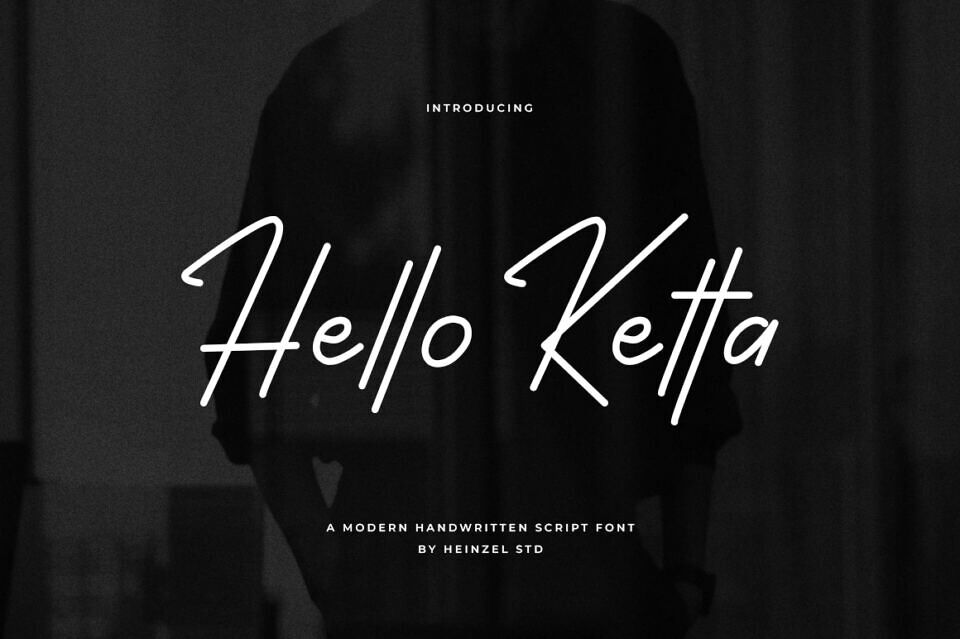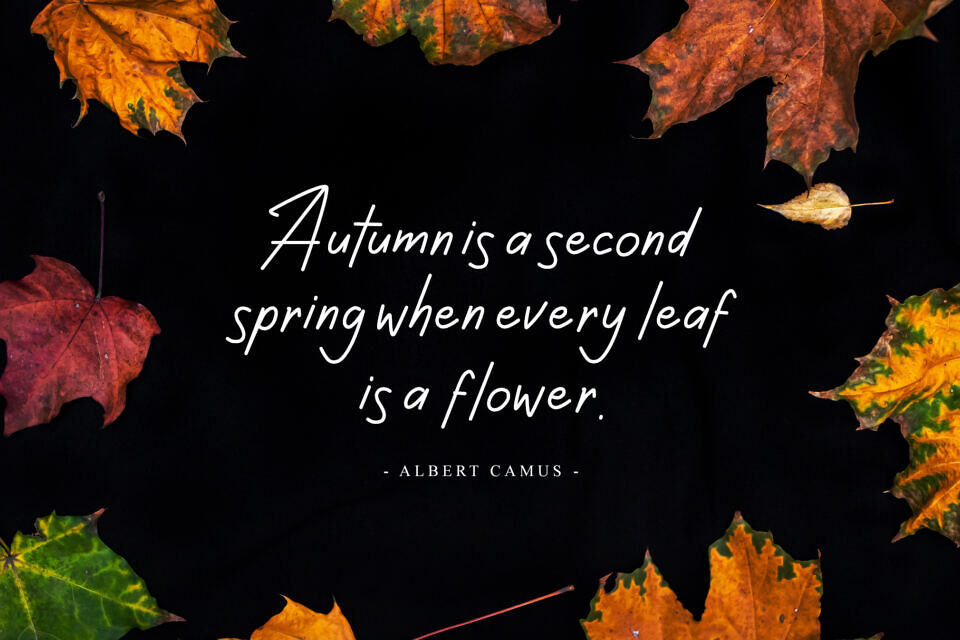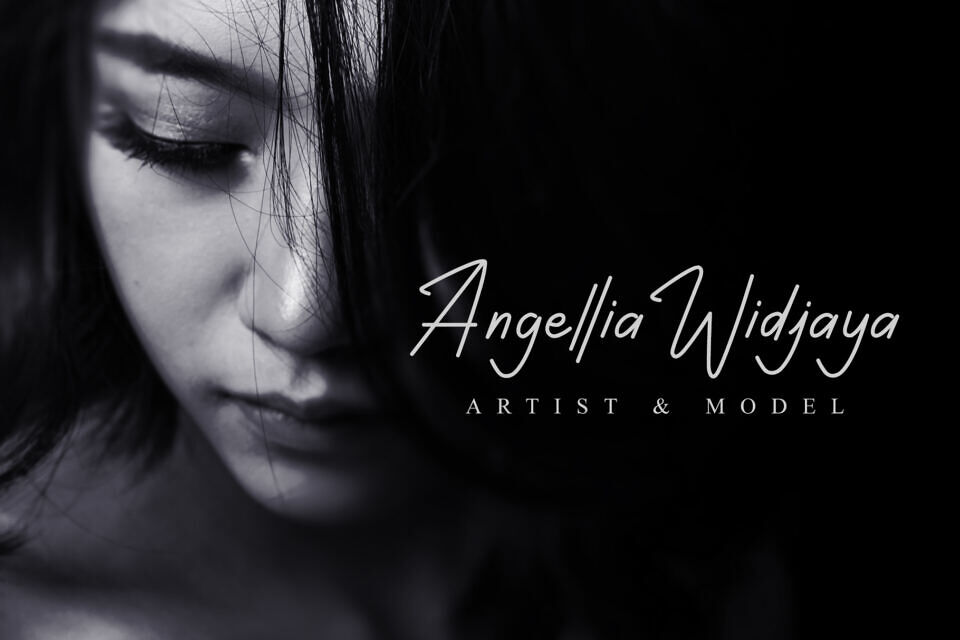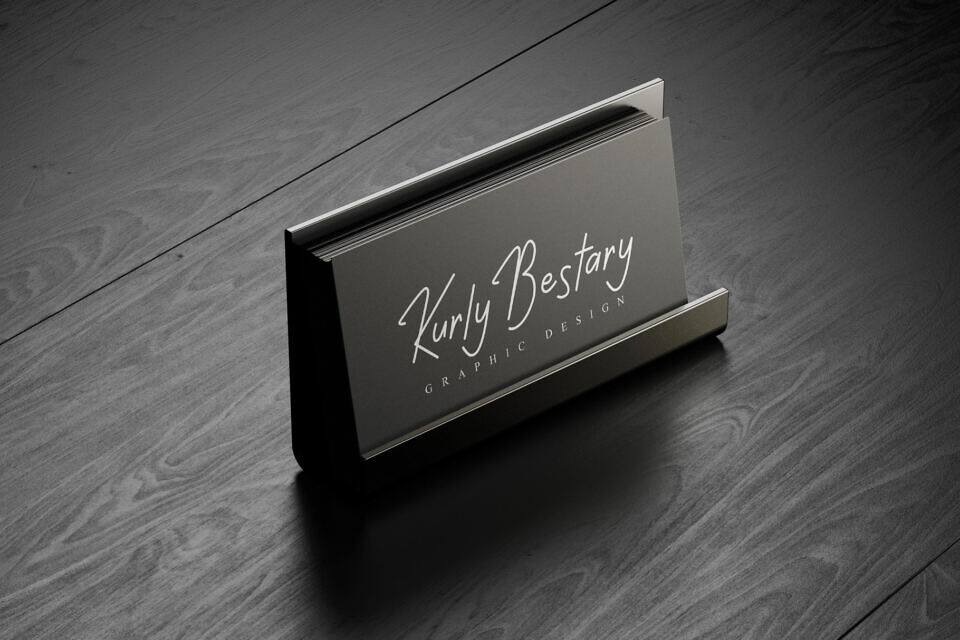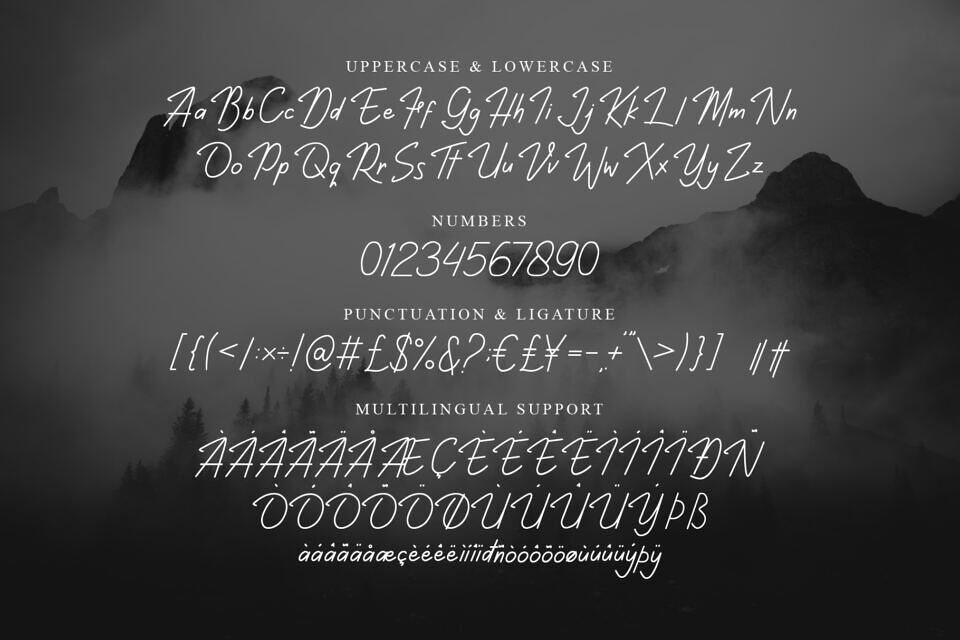
Introducing Hello Ketta, a modern and fresh font with a handwritten touch. Its elegant, natural, and stylish design makes it perfect for projects requiring a personal feel.
Suitable for various uses, including photography, social media, logos, and invitations, this font adds a unique touch to any design, from product packaging to wedding stationery and special events.